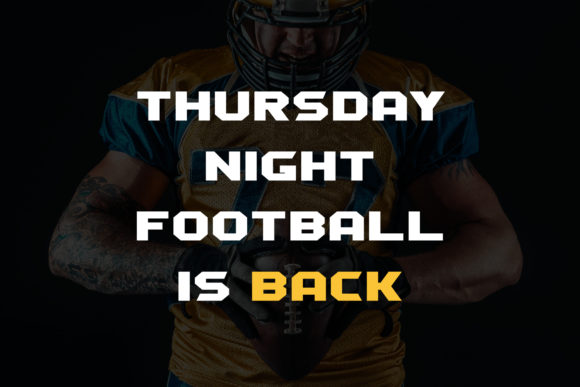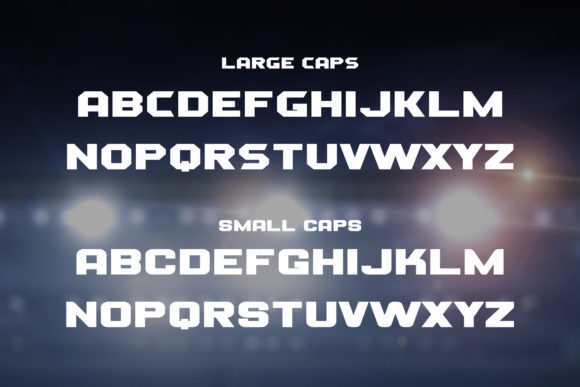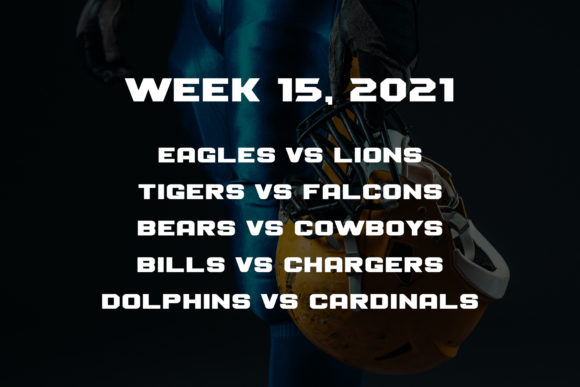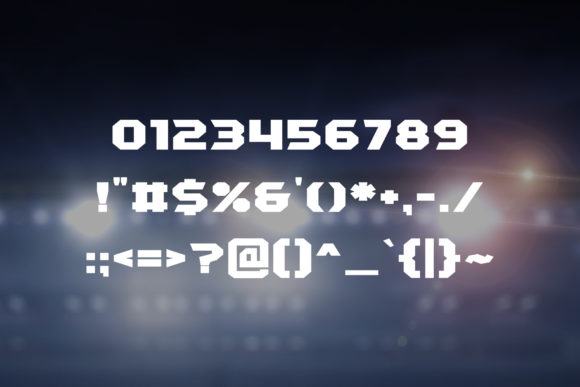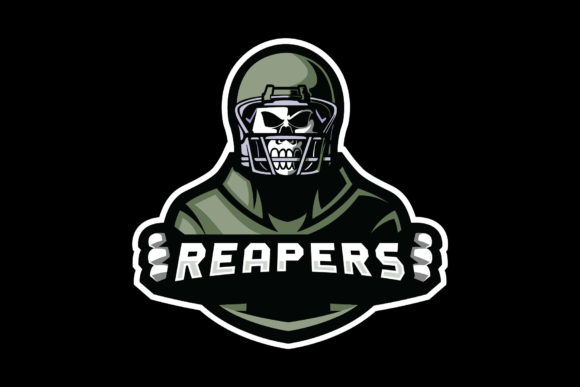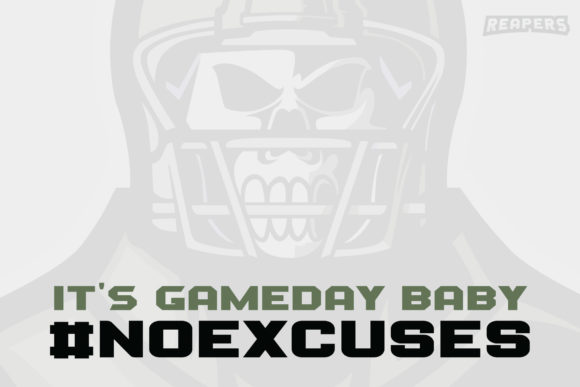
Discover the Bold and Versatile Heisman Font: Elevate Your Designs with its Chunky Sans Serif Style
Are you tired of using the same old fonts in your designs? Look no further than the Heisman Font, a chunky lettered sans serif font that’s taking the design world by storm. With its incredibly versatile style, Heisman is perfect for designers and crafters looking to add a bold and eye-catching touch to their work. In this article, we’ll dive into the world of Heisman Font, exploring its features, benefits, and uses, as well as provide tips on how to make the most of this amazing font.
What is Heisman Font?
Heisman Font is a sans serif font, characterized by its clean and simple design. But what sets it apart is its chunky lettering style, which gives it a bold and rugged edge. This font is perfect for designers who want to add a touch of personality to their work, whether it’s for a logo, branding, packaging, or any other design project. Heisman Font is incredibly versatile, making it suitable for a wide range of applications, from digital designs to print materials.
Key Features of Heisman Font
- Chunky lettering style: Heisman Font’s bold and chunky lettering style makes it stand out from other sans serif fonts.
- Versatile: Heisman Font can be used for a wide range of design projects, from logos and branding to packaging and more.
- Clean and simple design: Despite its bold style, Heisman Font has a clean and simple design that makes it easy to read and use.
- Easy to pair with other fonts: Heisman Font pairs well with other fonts, making it easy to create stunning font combinations.
Benefits of Using Heisman Font
So, why should you use Heisman Font in your designs? Here are just a few benefits:
- Adds personality to your designs: Heisman Font’s bold and chunky style adds a touch of personality to your designs, making them stand out from the crowd.
- Increases readability: Despite its bold style, Heisman Font is easy to read, making it perfect for designs where readability is key.
- Versatile and flexible: Heisman Font can be used for a wide range of design projects, making it a great addition to your font library.
Using Heisman Font in Your Designs
So, how can you use Heisman Font in your designs? Here are a few ideas to get you started:
- Logos and branding: Heisman Font is perfect for logos and branding, adding a bold and eye-catching touch to your brand identity.
- Packaging design: Heisman Font can be used to create stunning packaging designs that stand out on store shelves.
- Digital designs: Heisman Font can be used for digital designs, such as social media graphics, website headers, and more.
- Print materials: Heisman Font can be used for print materials, such as posters, flyers, and brochures.
Tips for Getting the Most out of Heisman Font
Here are a few tips for getting the most out of Heisman Font:
- Experiment with font sizes: Heisman Font looks great in a variety of font sizes, so don’t be afraid to experiment to find the perfect size for your design.
- Pair with other fonts: Heisman Font pairs well with other fonts, so try pairing it with a script font or a serif font to create a stunning font combination.
- Use it boldly: Heisman Font is a bold font, so don’t be afraid to use it boldly in your designs.
In conclusion, Heisman Font is a versatile and bold sans serif font that’s perfect for designers and crafters looking to add a touch of personality to their work. With its chunky lettering style and clean design, Heisman Font is suitable for a wide range of design projects, from logos and branding to packaging and more. So why not give Heisman Font a try and see how it can elevate your designs?